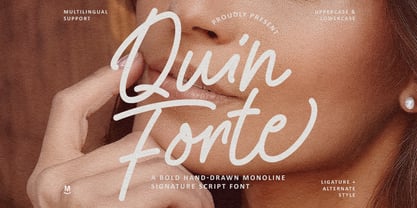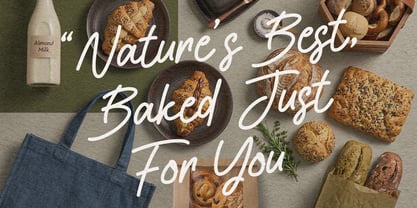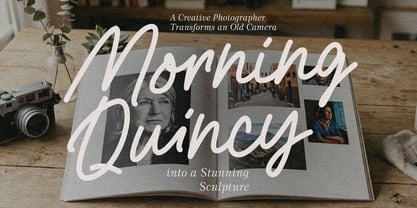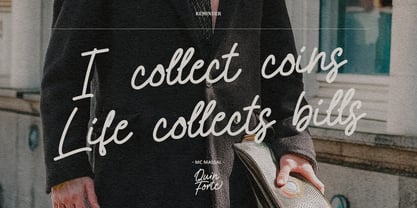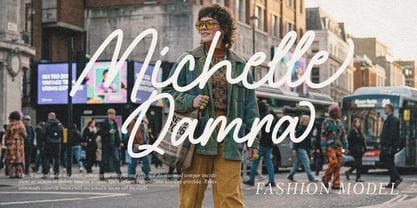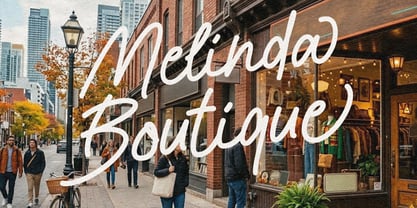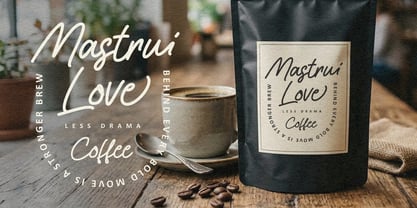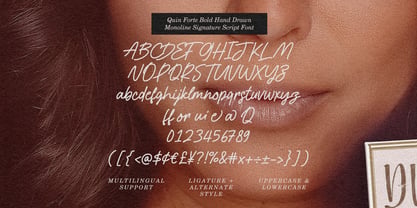
MC Quin Forte
by Maulana Creative
The MC Quin Forte Font Family was designed by Gilang Maulana and published by Maulana Creative. MC Quin Forte contains 1 styles. More about this family
Quin Forte is a sophisticated, hand-drawn monoline script font that strikes the perfect balance between organic warmth and professional elegance. Characterized by its bold, consistent stroke weight and fluid "signature" flow, this font brings an authentic, personalized touch to any creative project. It features a full set of uppercase and lowercase letters, numerals, and punctuations, along with specialized ligatures and alternate styles to mimic real handwriting. Whether you are designing high-end branding, fashion lookbooks, boutique signage, or artisanal packaging, Quin Forte delivers a modern, stylish aesthetic that feels both handcrafted and high-fashion.
Designers: Gilang Maulana
Foundry: Maulana Creative